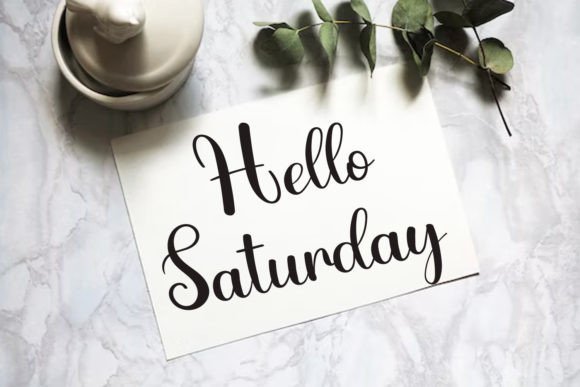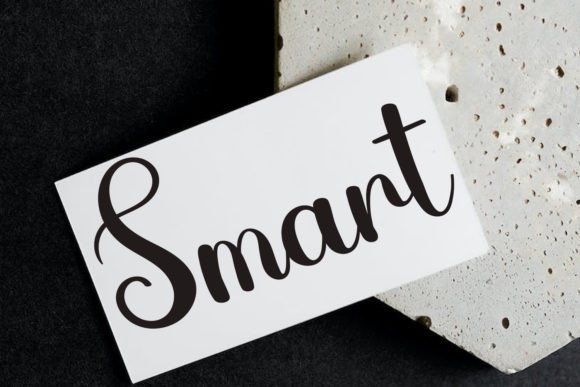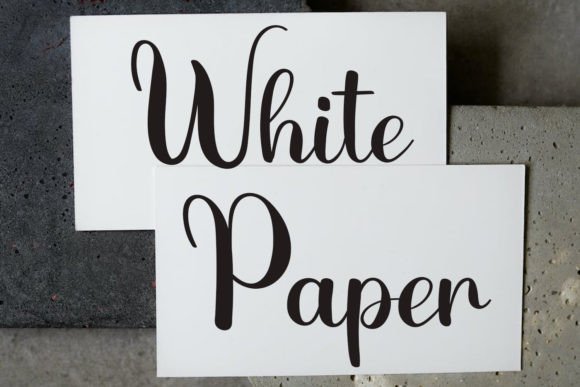
Introducing Automatic: The Sweet and Casual Handwritten Font for Your Design Needs
Are you a designer or crafter looking for a font that can add a touch of romance and personality to your designs? Look no further than Automatic, a sweet and casual handwritten font that’s perfect for creating beautiful wedding invitations, cards, and other designs that require a personal touch.
What Makes Automatic Special?
Automatic is a dainty and joyful font that’s designed to bring a sense of whimsy and charm to your designs. Its handwritten style gives it a personal and intimate feel, making it ideal for designs that require a touch of warmth and elegance. Whether you’re creating wedding invitations, greeting cards, or other paper crafts, Automatic is the perfect font to add a romantic and feminine touch.
Key Features of Automatic Font
- Sweet and Casual Style: Automatic has a sweet and casual style that’s perfect for creating designs that require a personal touch.
- Handwritten Appearance: The font has a handwritten appearance that gives it a unique and intimate feel.
- Dainty and Joyful: Automatic is a dainty and joyful font that’s perfect for creating designs that require a touch of whimsy and charm.
- Romantic and Feminine: The font has a romantic and feminine style that’s perfect for creating wedding invitations, cards, and other designs that require a touch of elegance.
Use Cases for Automatic Font
Automatic is a versatile font that can be used for a variety of design projects, including:
- Wedding Invitations: Automatic is perfect for creating beautiful and elegant wedding invitations that require a personal touch.
- Greeting Cards: The font is ideal for creating greeting cards for special occasions, such as birthdays, anniversaries, and holidays.
- Paper Crafts: Automatic can be used for creating paper crafts, such as scrapbooking, journaling, and card making.
- Social Media Graphics: The font can be used for creating social media graphics, such as quotes, posters, and flyers.
Tips for Using Automatic Font
Here are some tips for using Automatic font in your designs:
- Pair with Other Fonts: Automatic can be paired with other fonts to create a unique and interesting design.
- Use for Headings and Titles: The font is perfect for use as headings and titles, adding a touch of elegance and sophistication to your designs.
- Add a Personal Touch: Automatic can be used to add a personal touch to your designs, making them more intimate and special.
Automatic is a sweet and casual handwritten font that’s perfect for designers and crafters looking to add a touch of romance and personality to their designs. With its dainty and joyful style, Automatic is ideal for creating beautiful wedding invitations, cards, and other designs that require a personal touch. Try Automatic font today and take your designs to the next level!